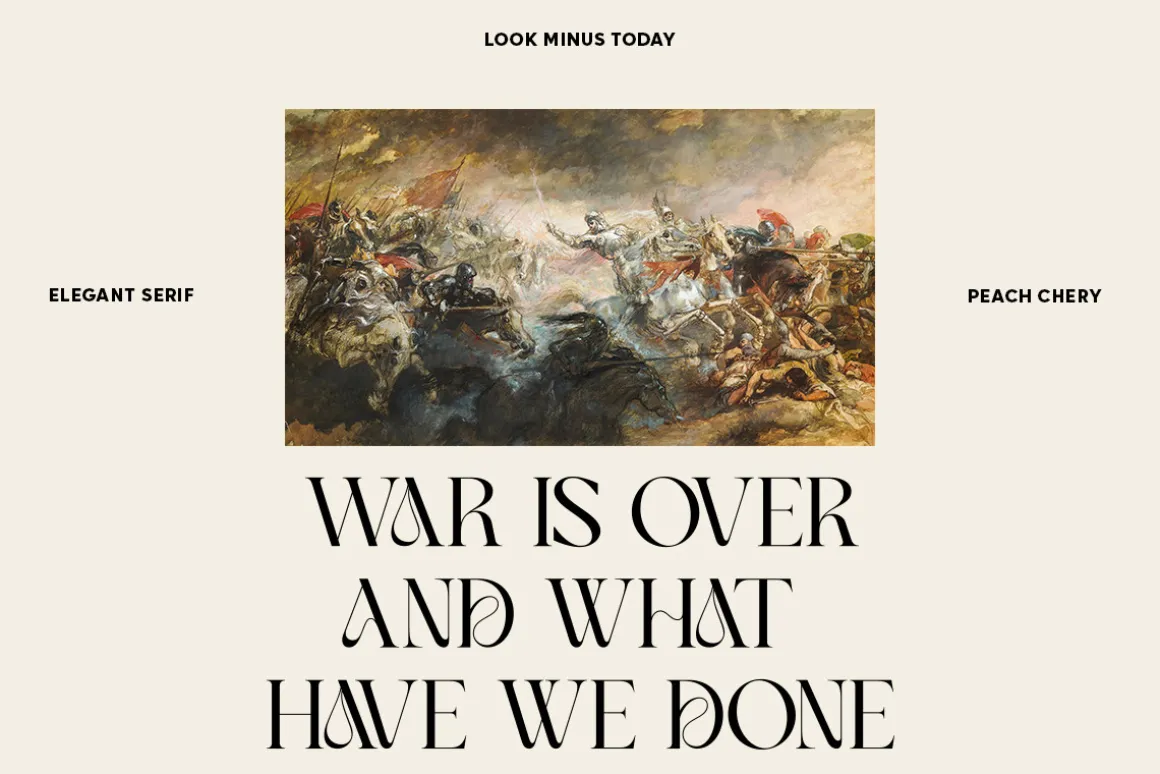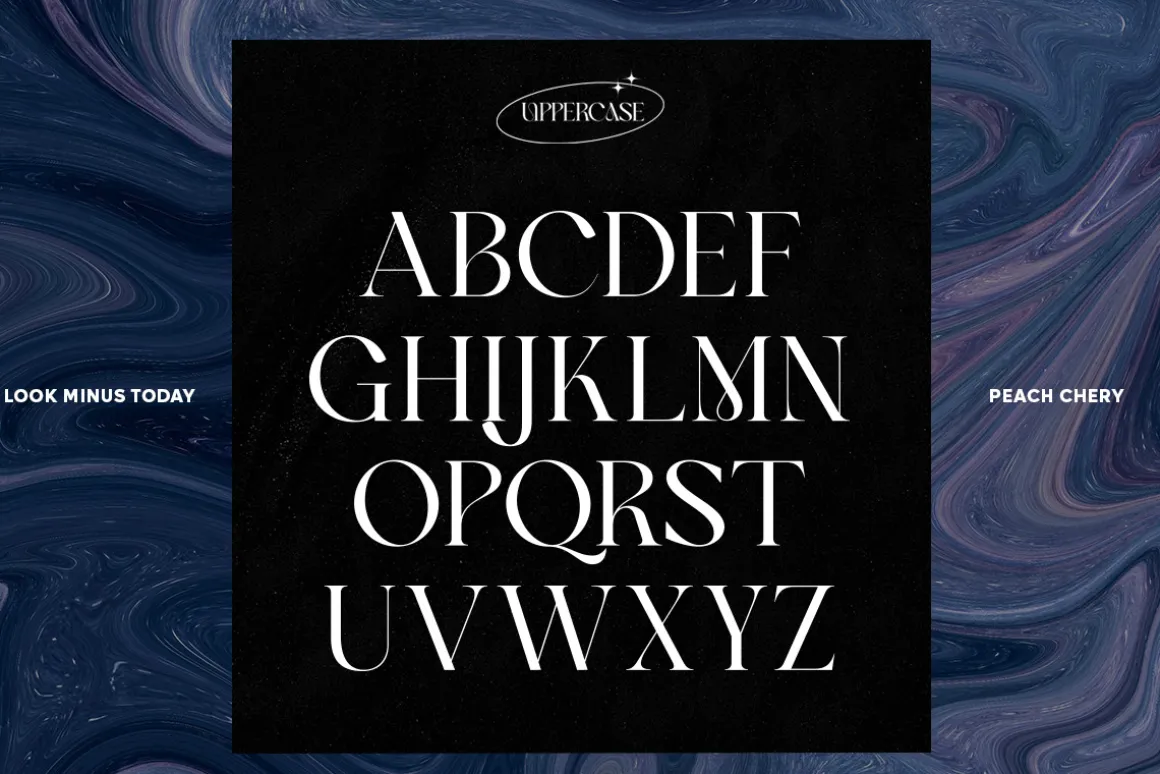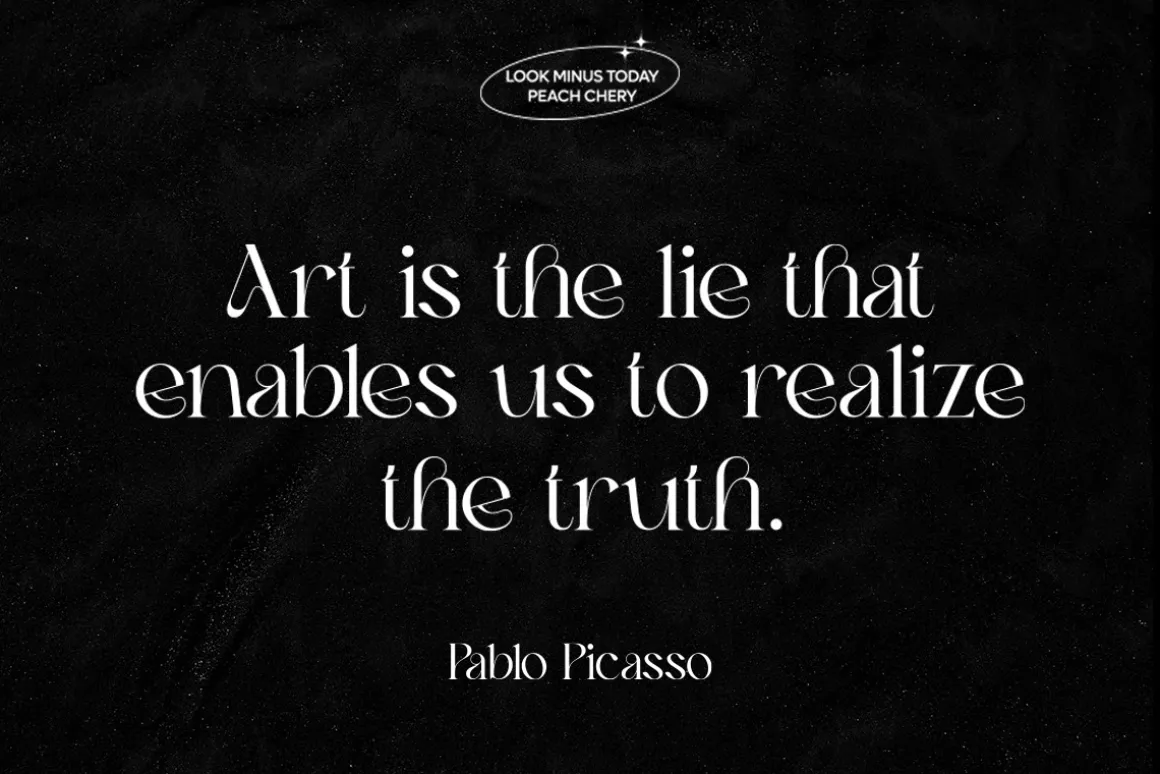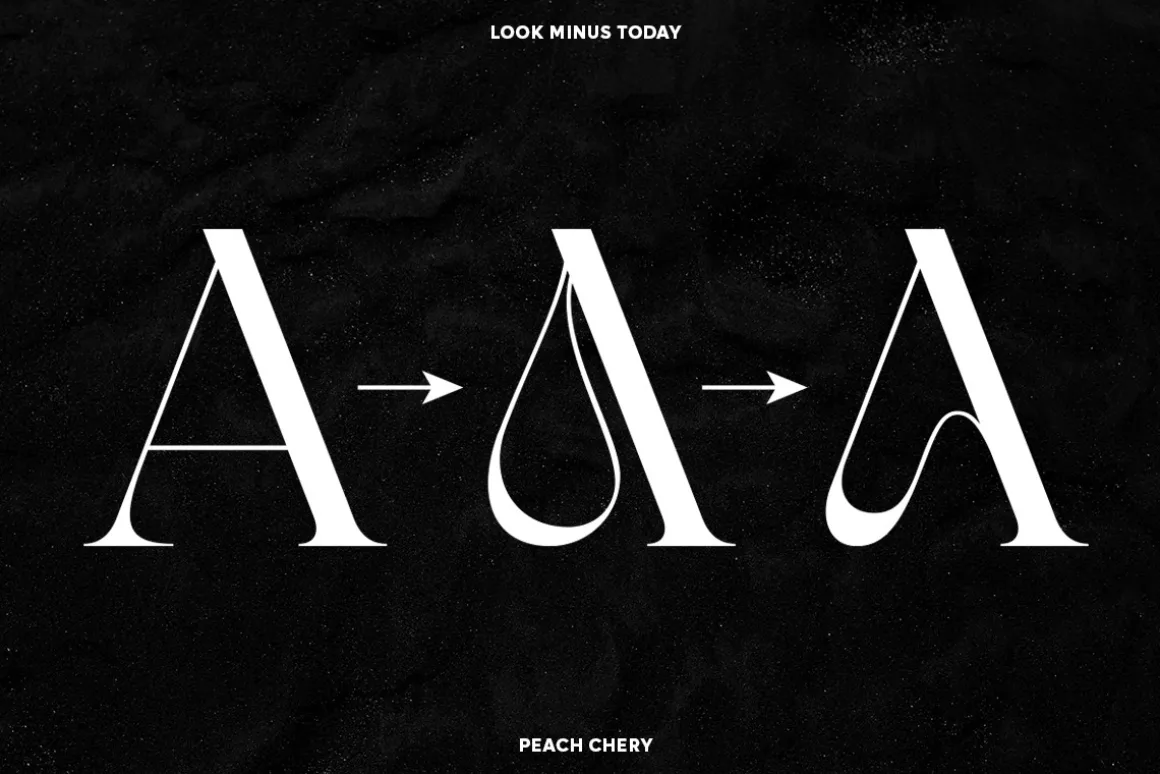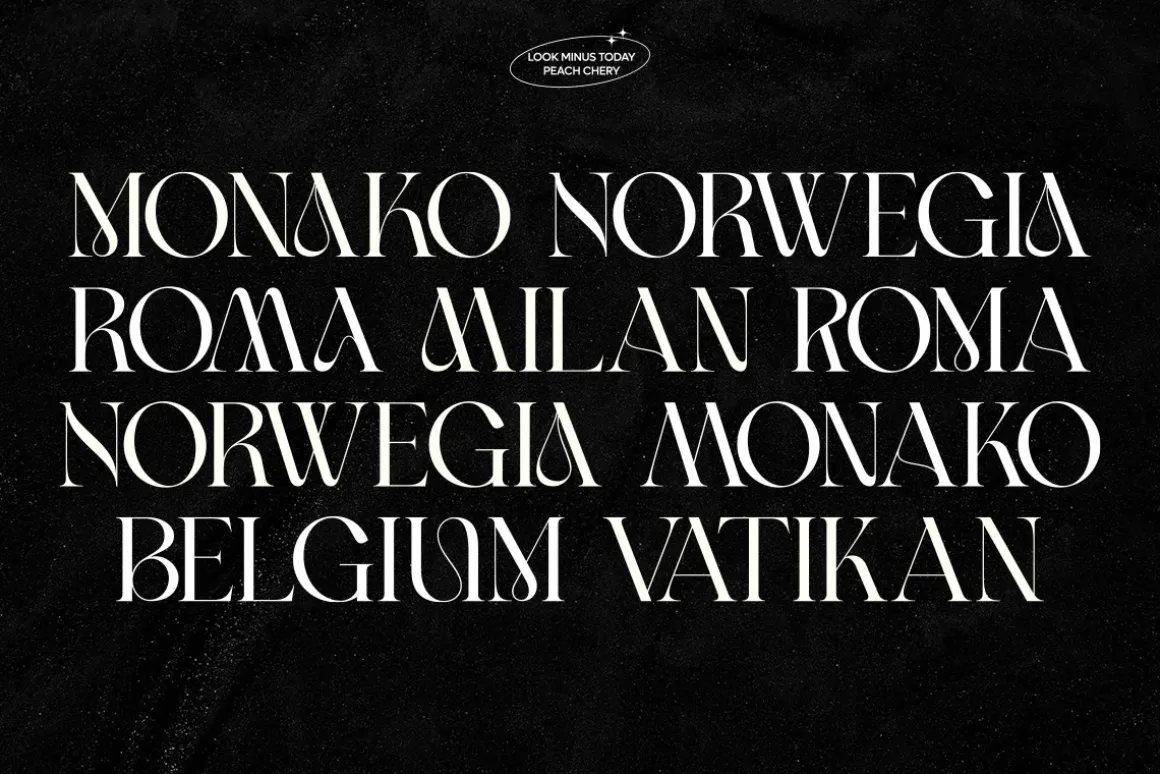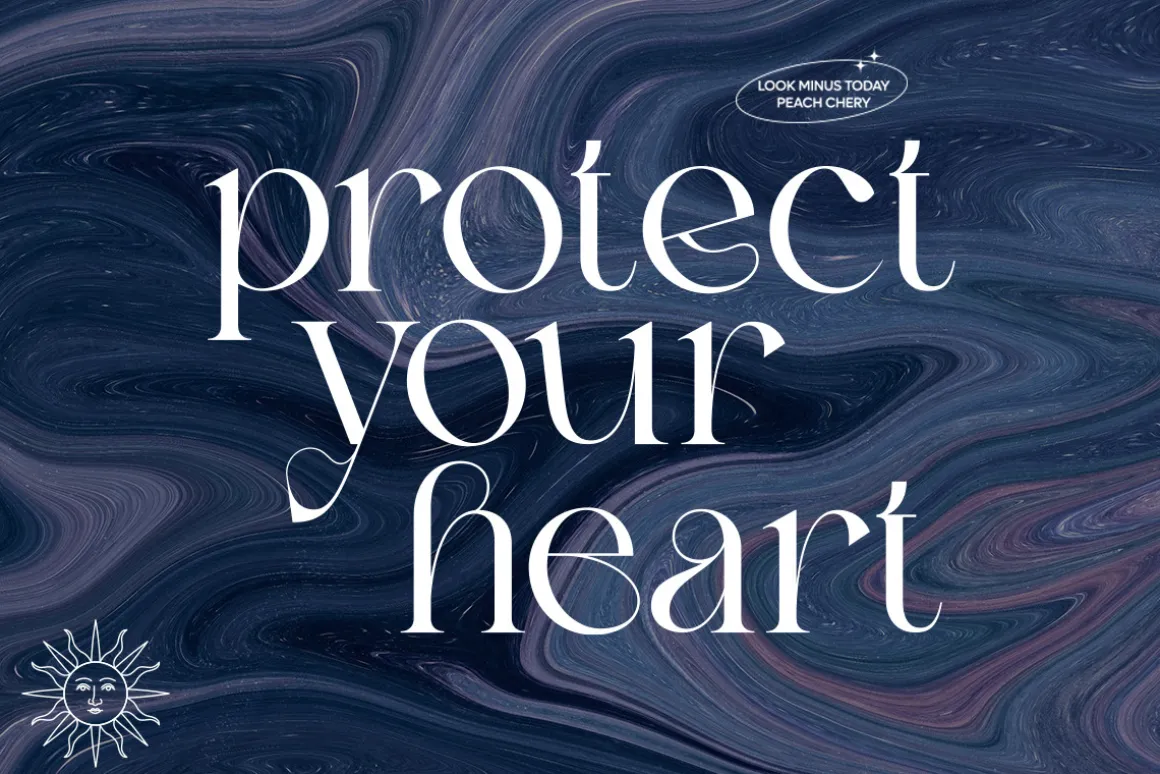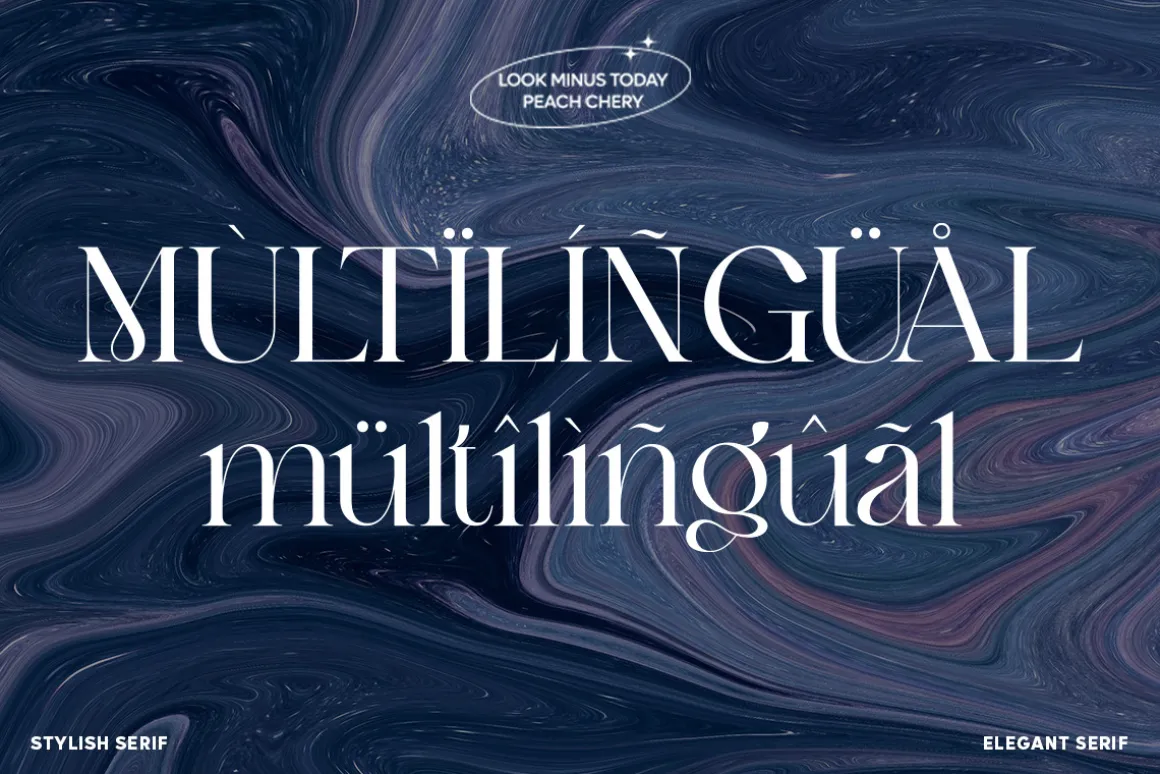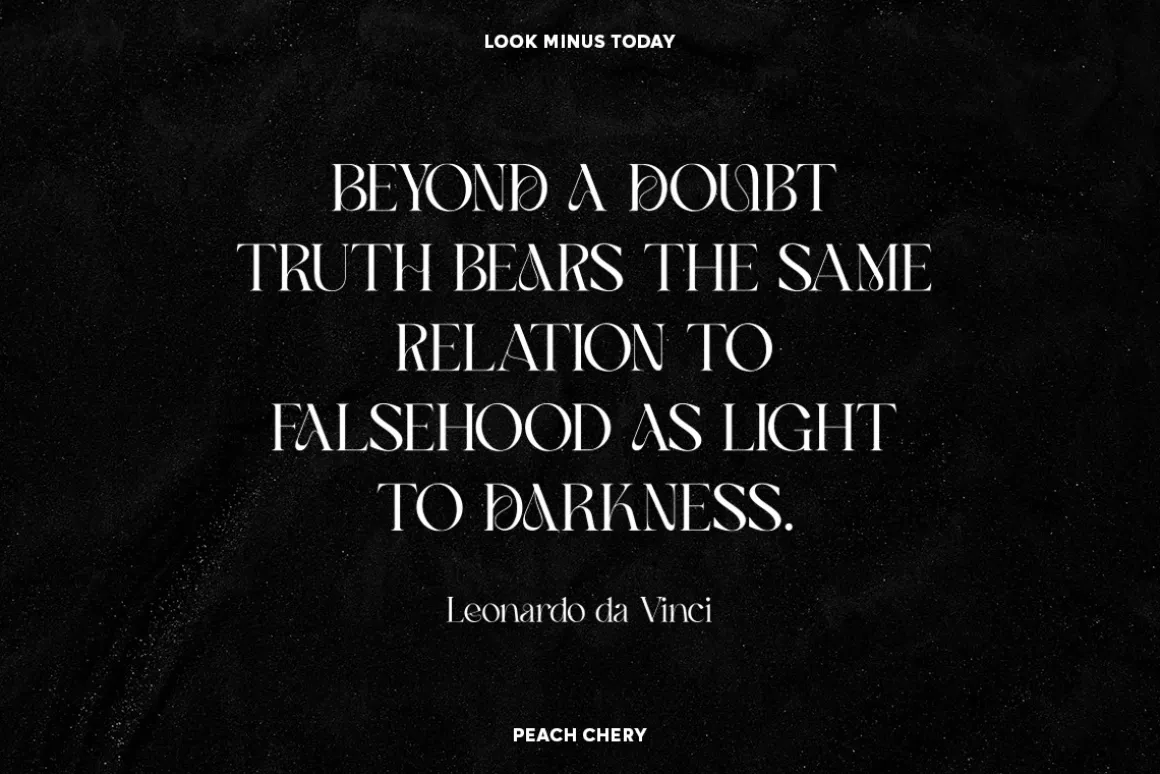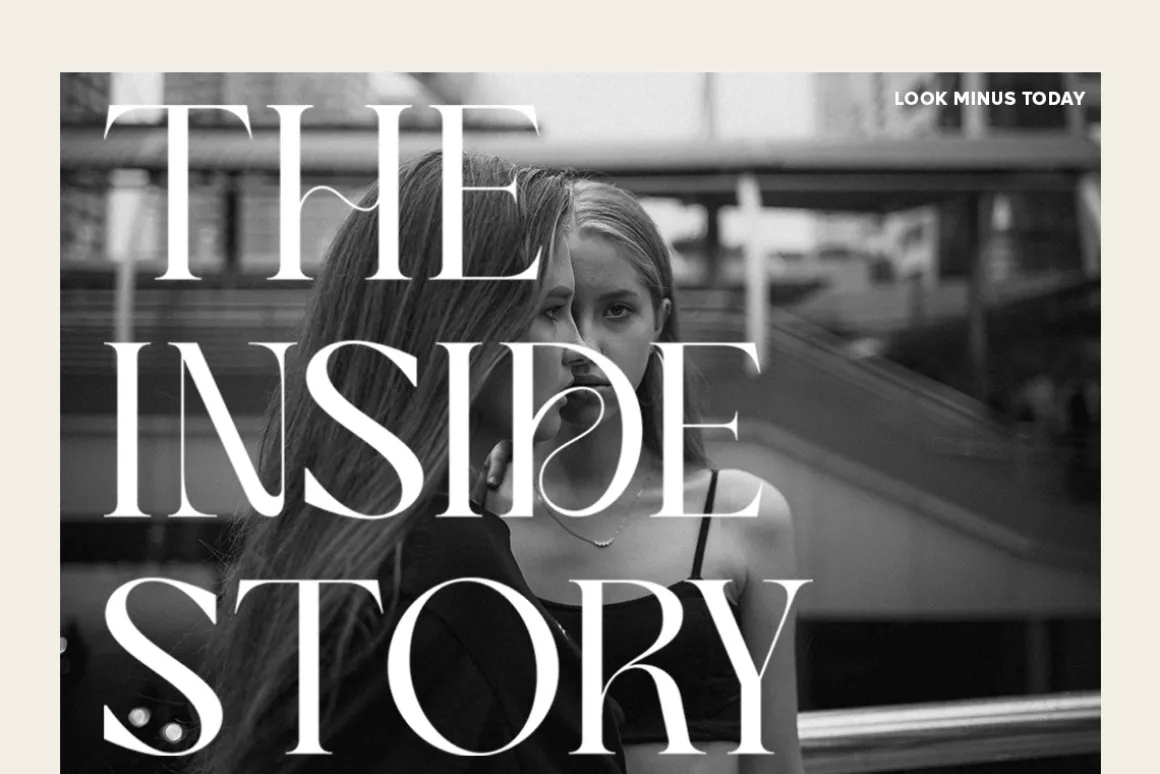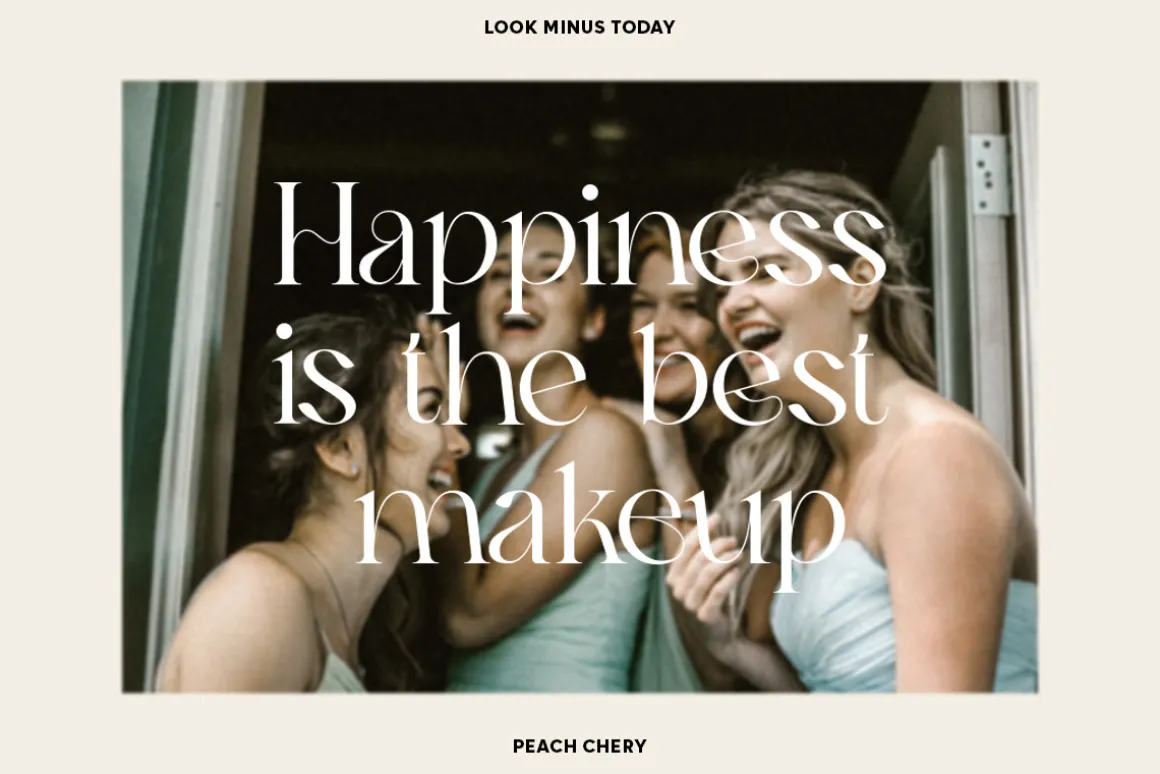
Introducing Peach Chery – A Display Serif Font With Alternates by Look minus today
Peach Chery – Is a display and elegant serif font that is perfect for adding a touch of sophistication to your designs. Its sleek and stylish look makes it suitable for a variety of applications, including branding, advertising, and editorial design.